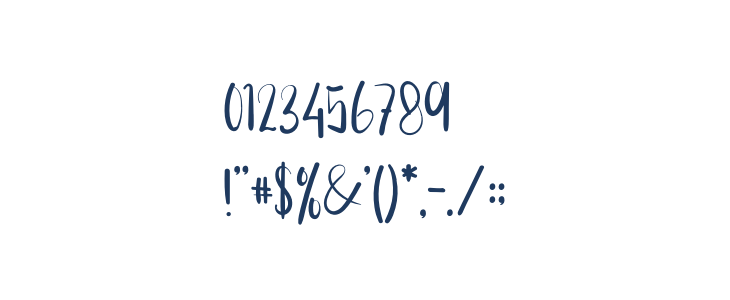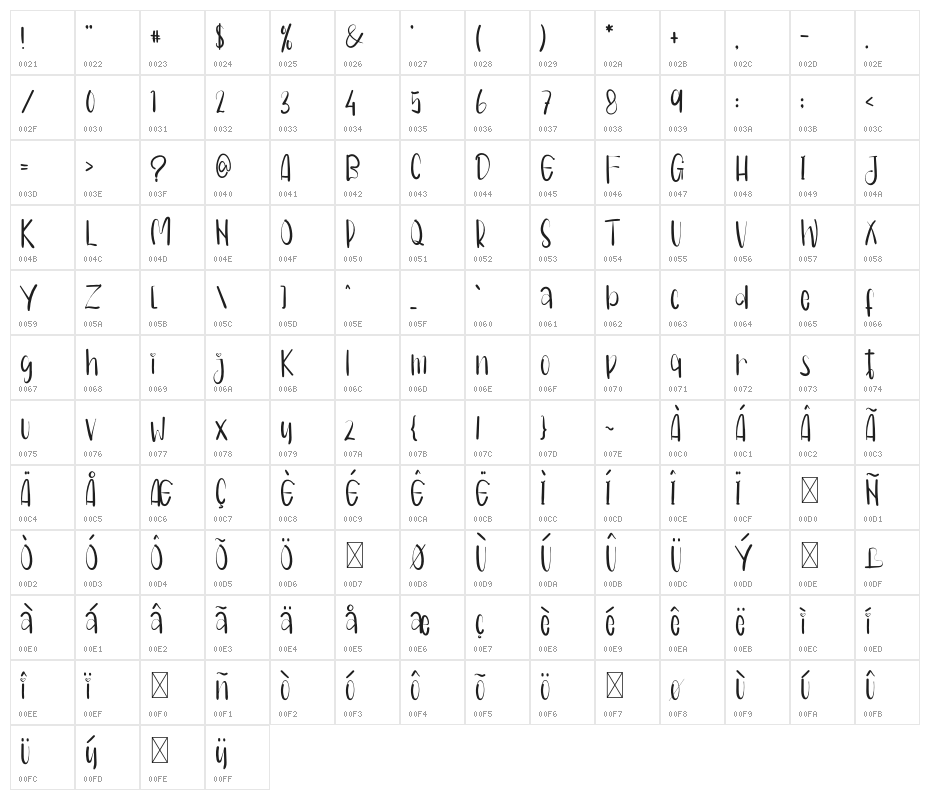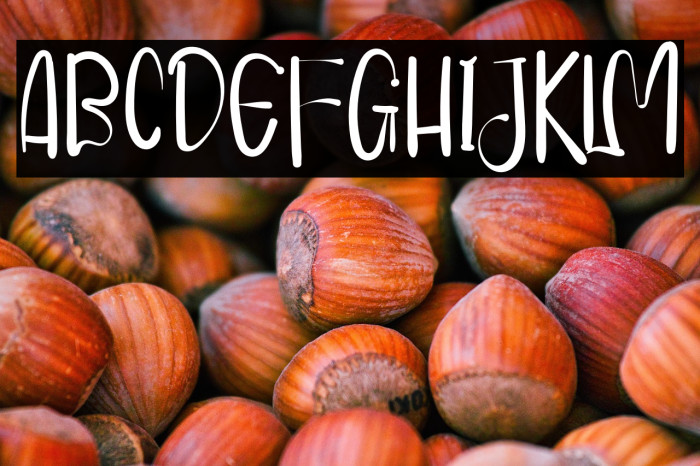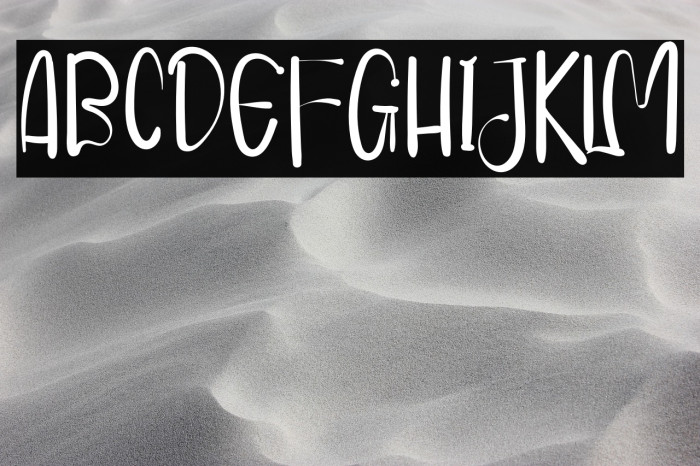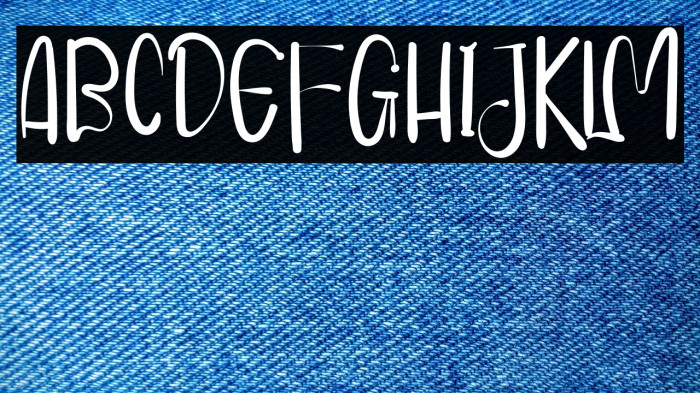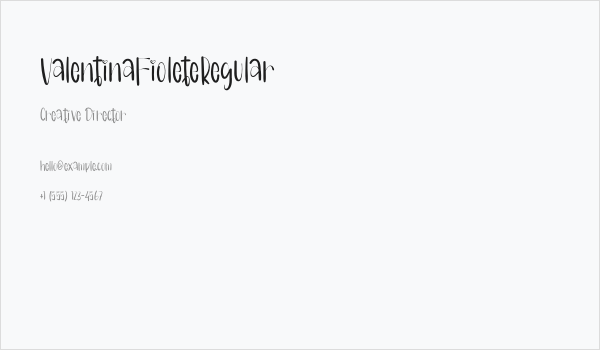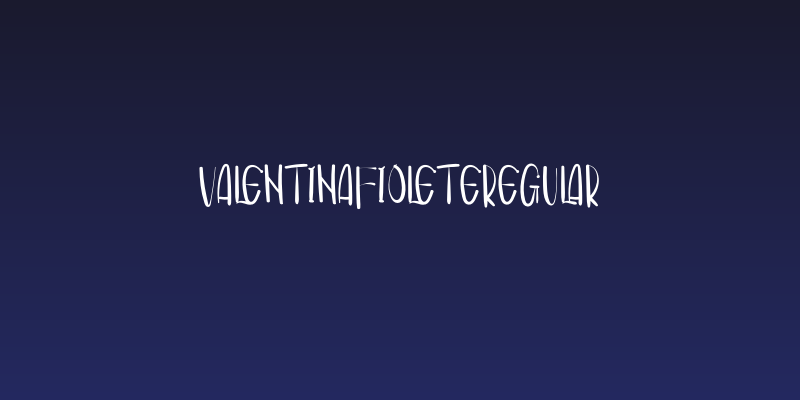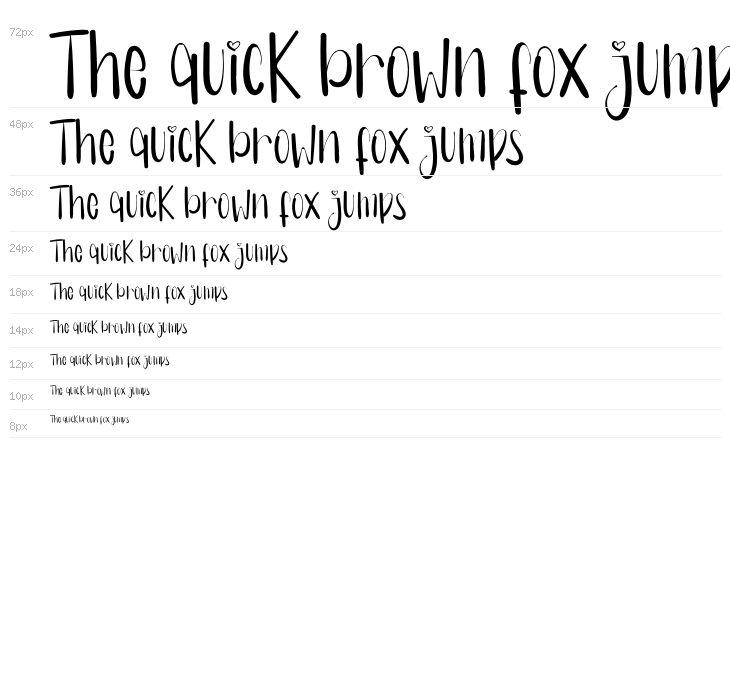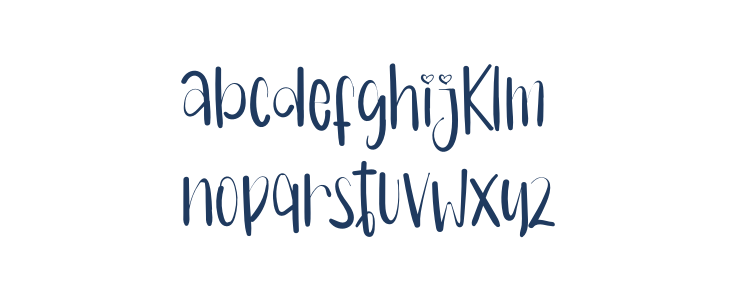
ValentinaFioleteRegular Font
ValentinaFioleteRegular Description
This font features a playful and whimsical design with a handwritten style. The characters are slightly irregular, adding a personal and informal touch. The uppercase letters are bold and rounded, while the lowercase letters maintain a consistent flow with some decorative elements, such as small hearts. The numerals are clear and easy to read, matching the overall playful aesthetic. The special characters are creatively integrated, maintaining the font's unique style. This font is perfect for projects that require a fun and engaging look.